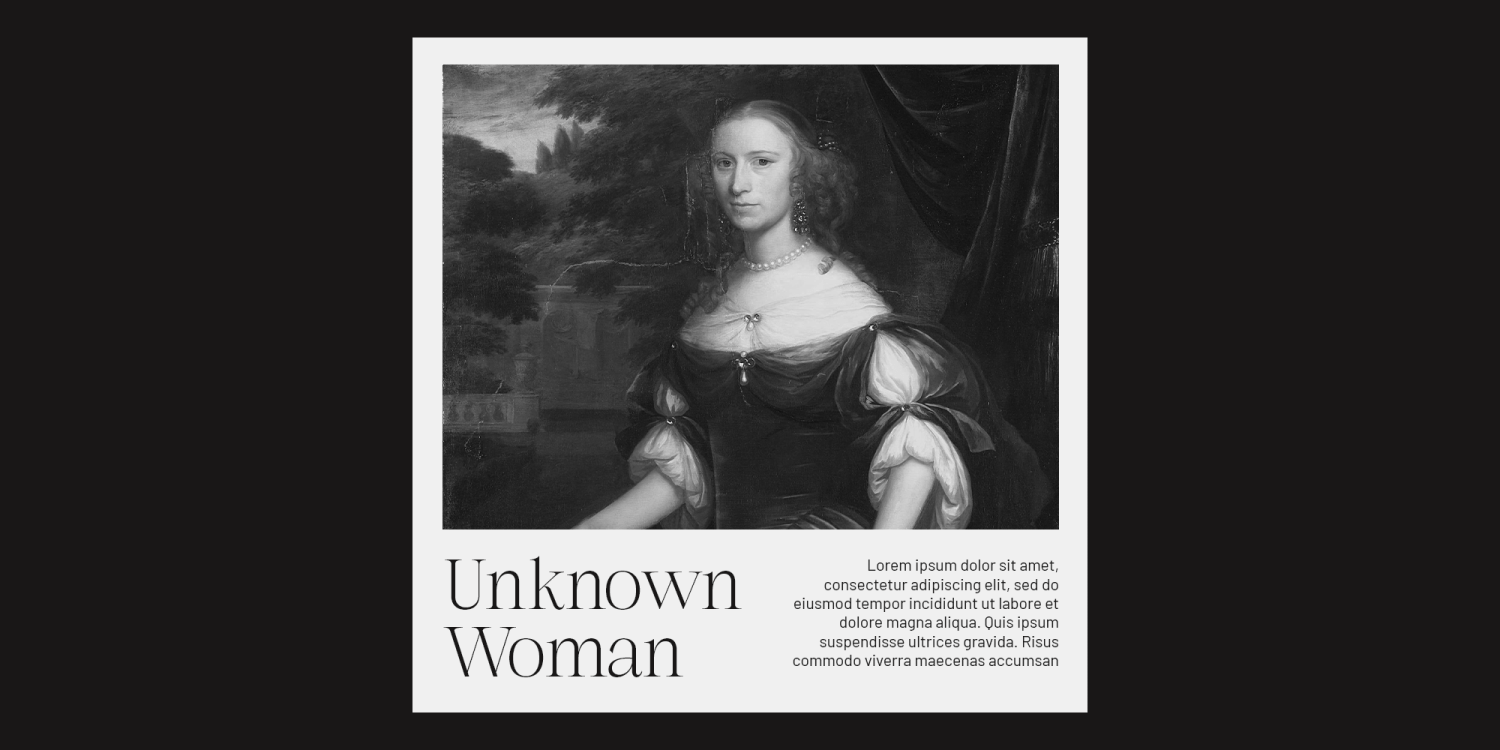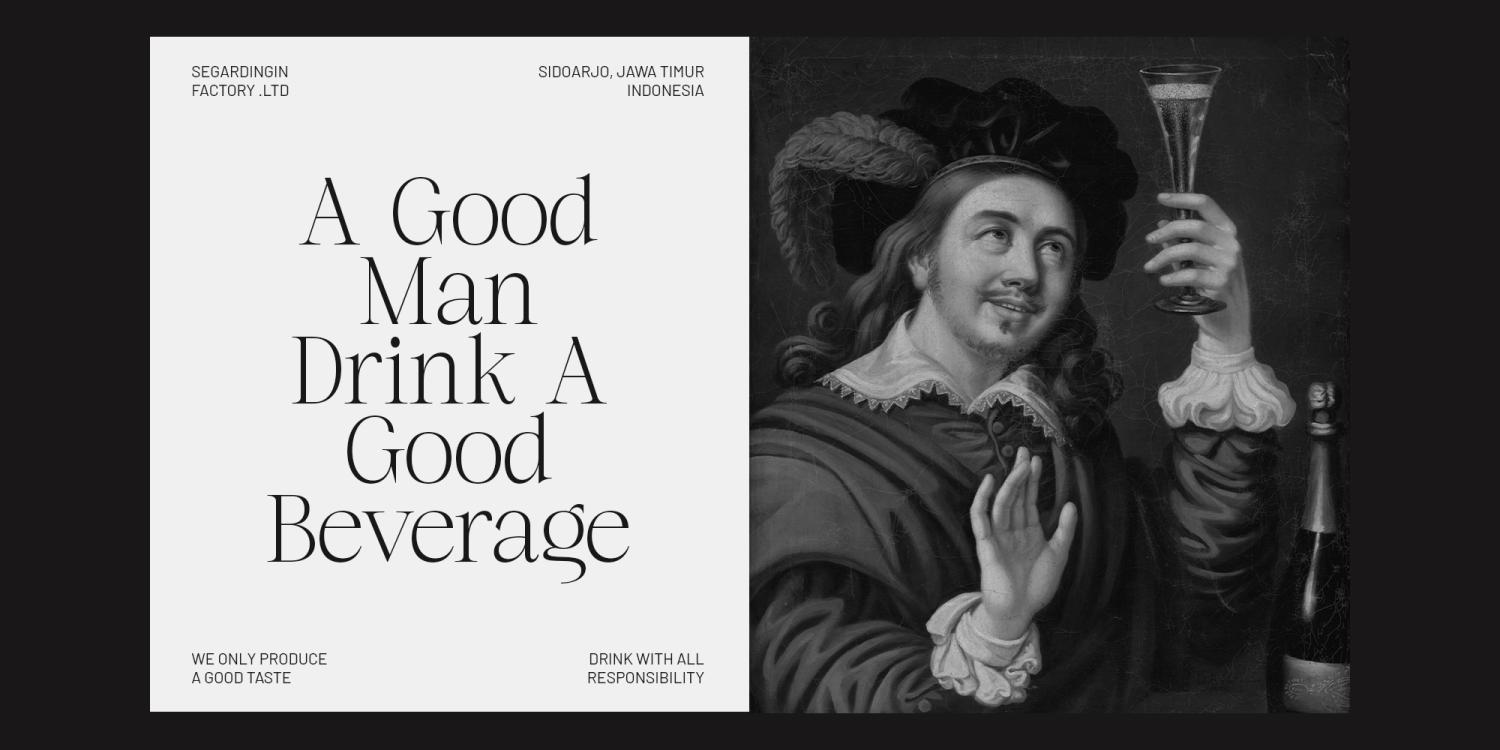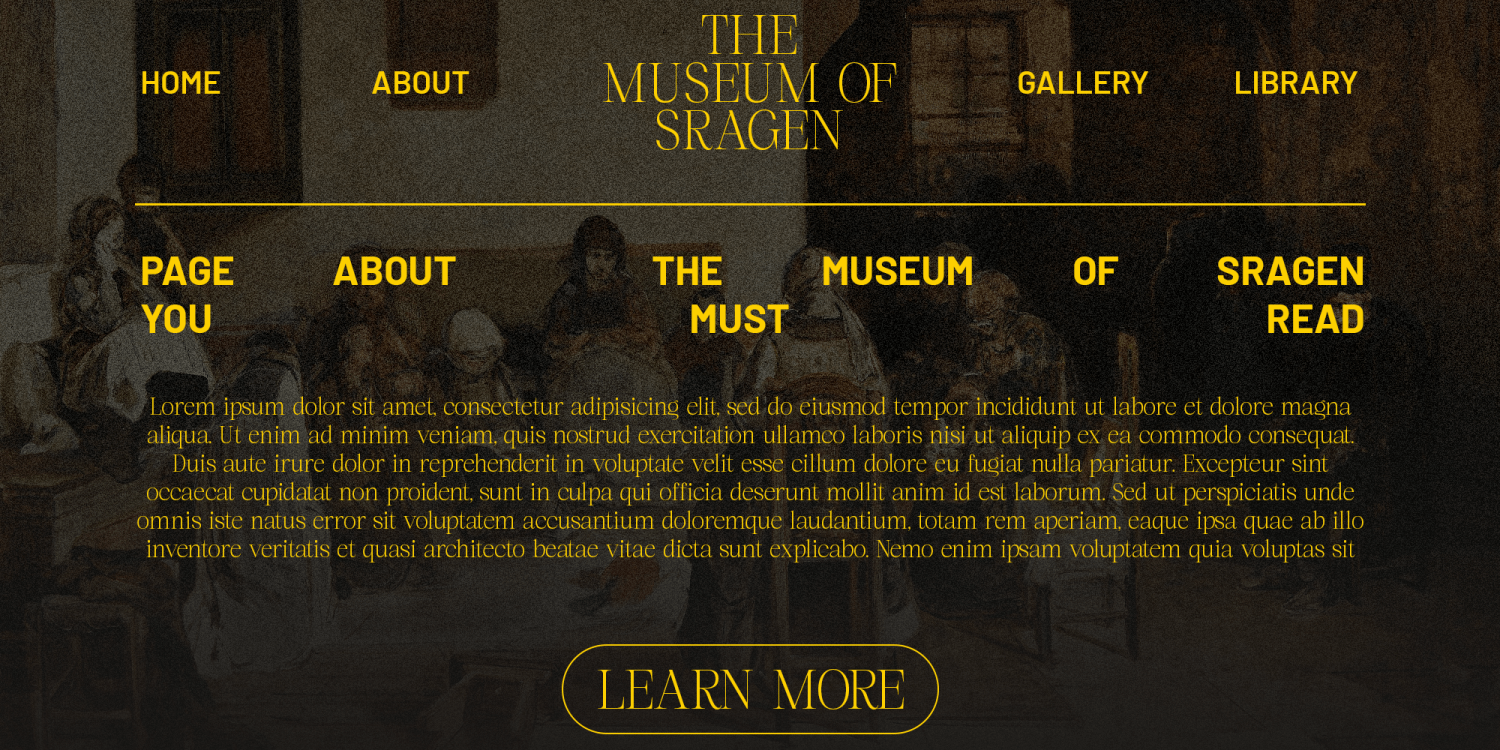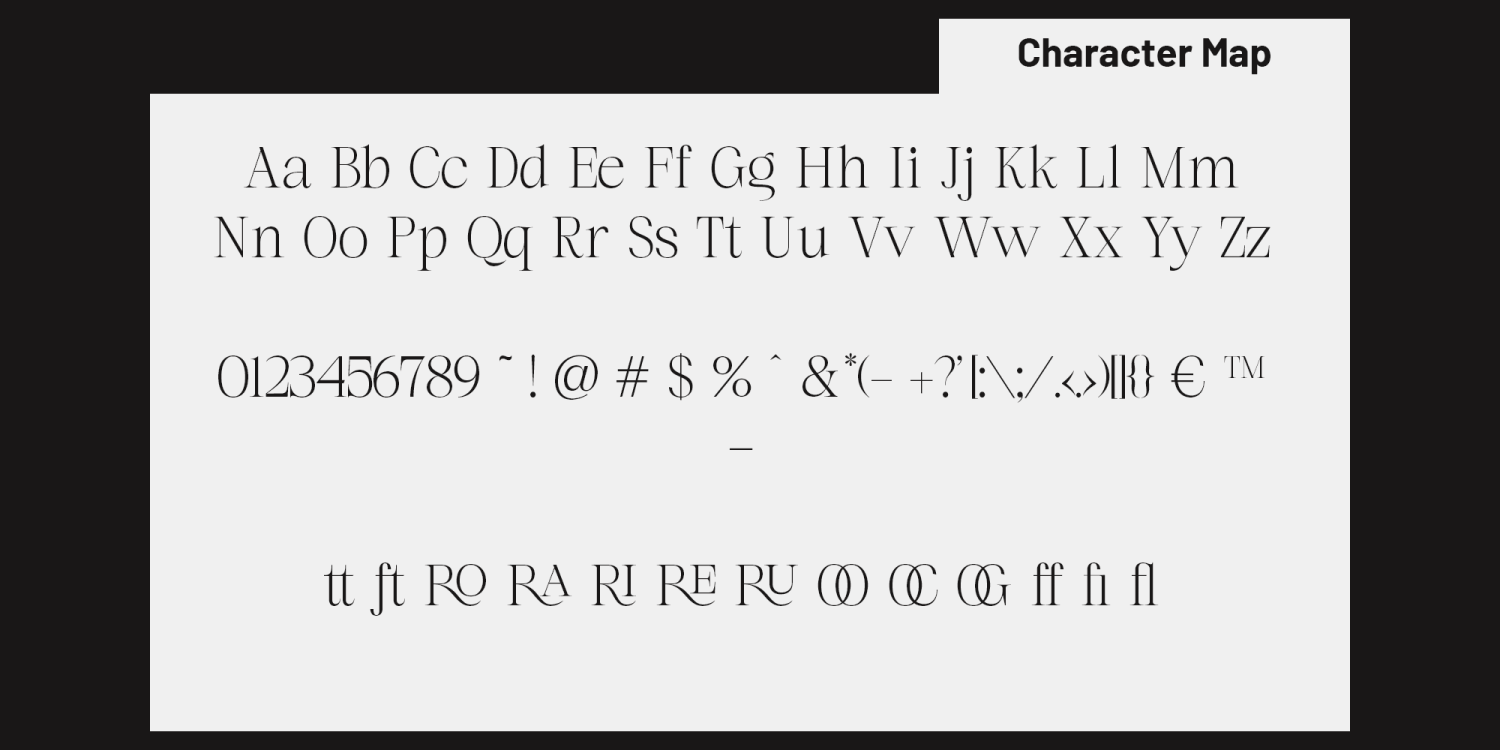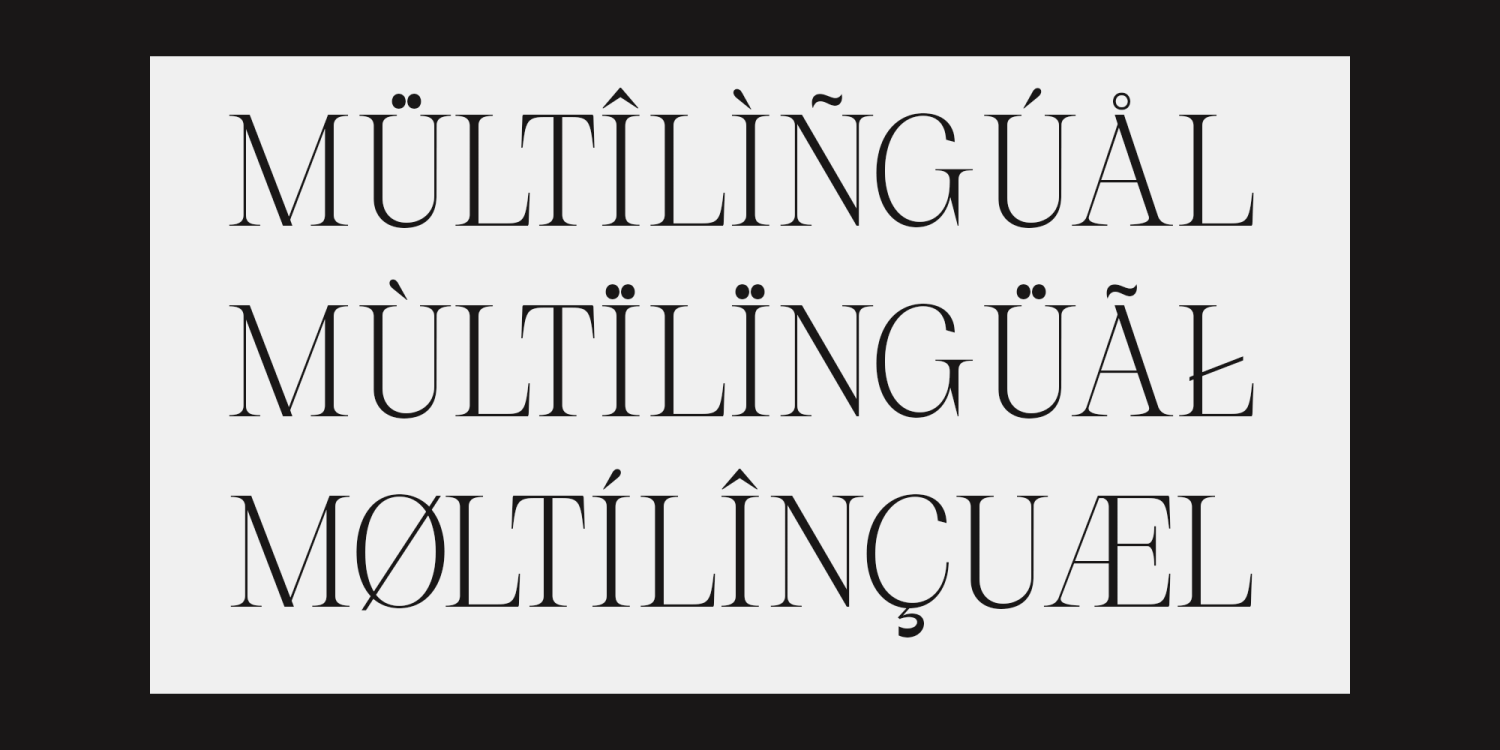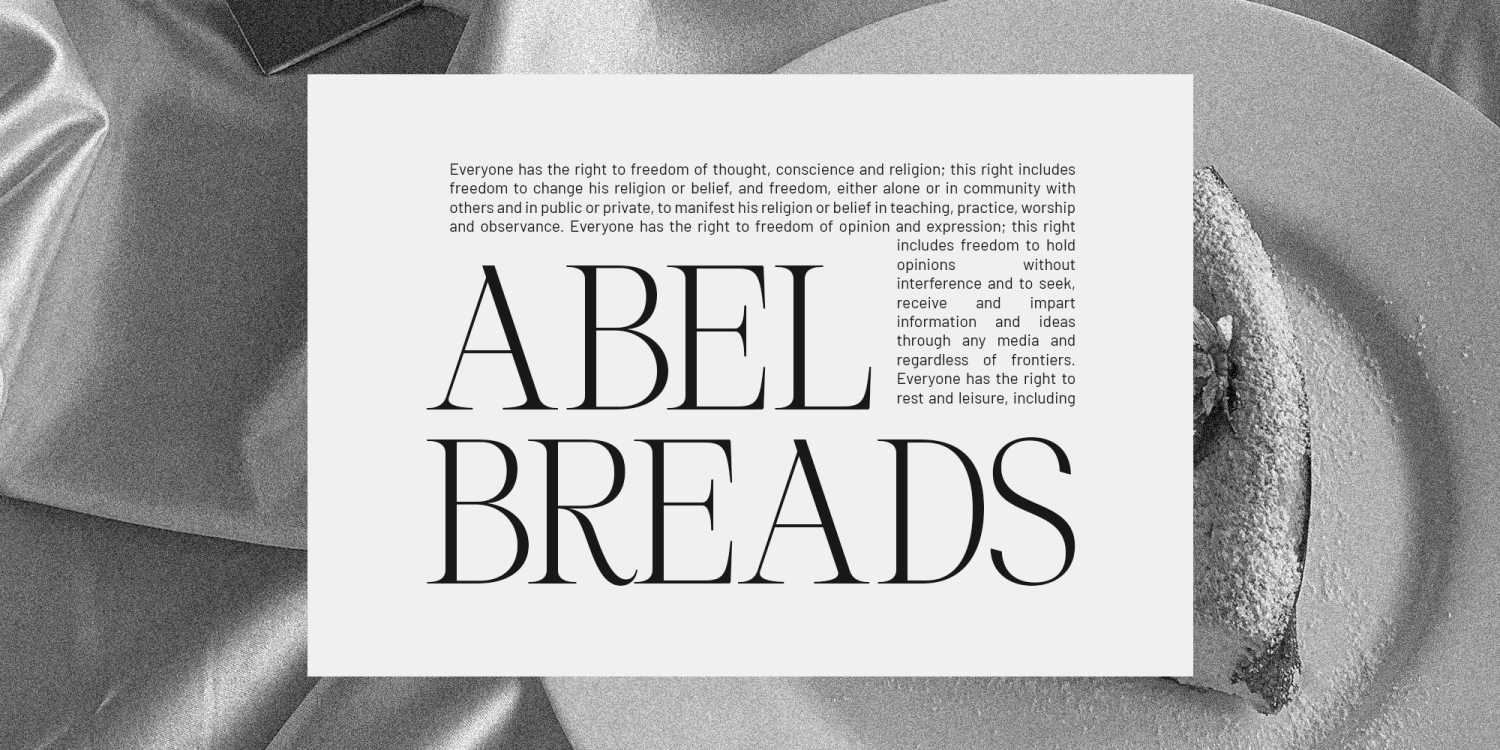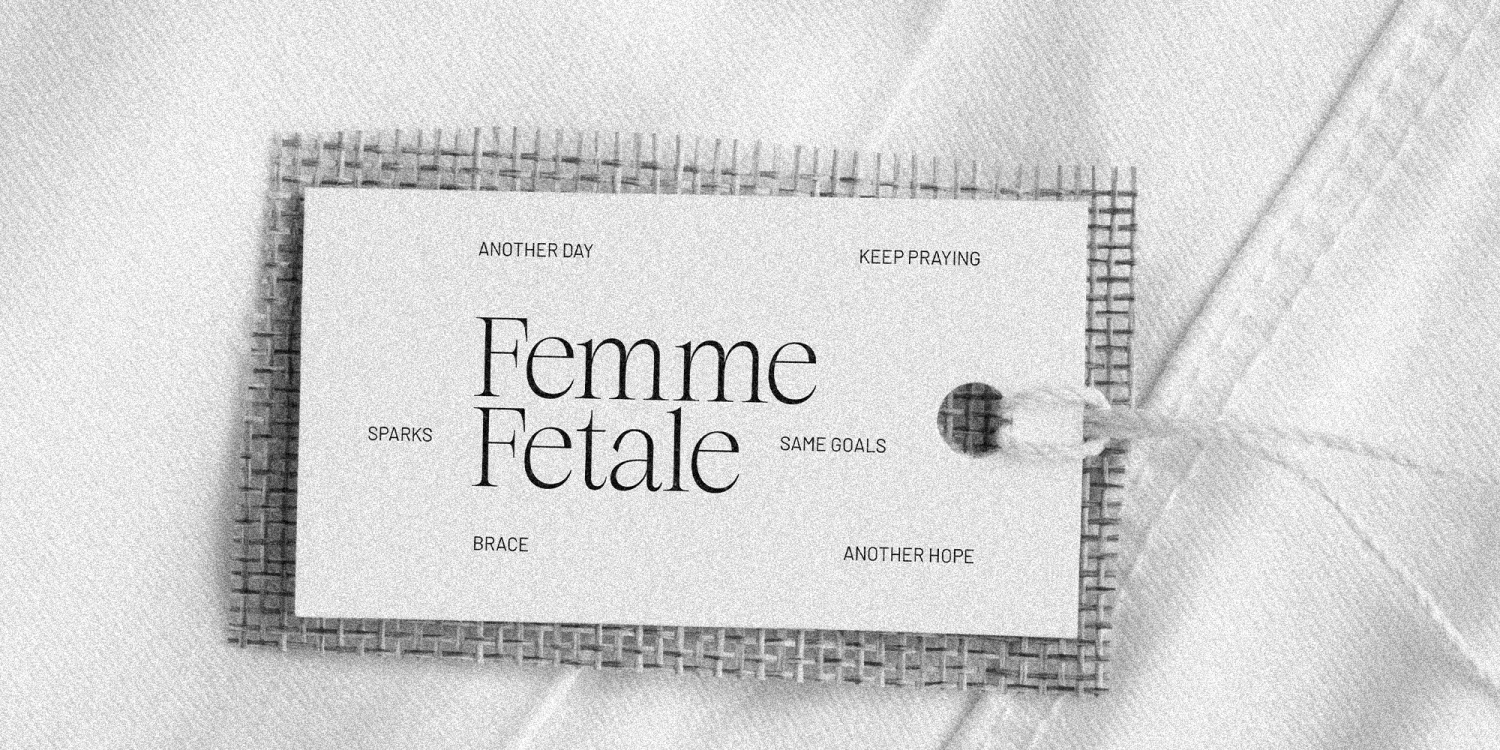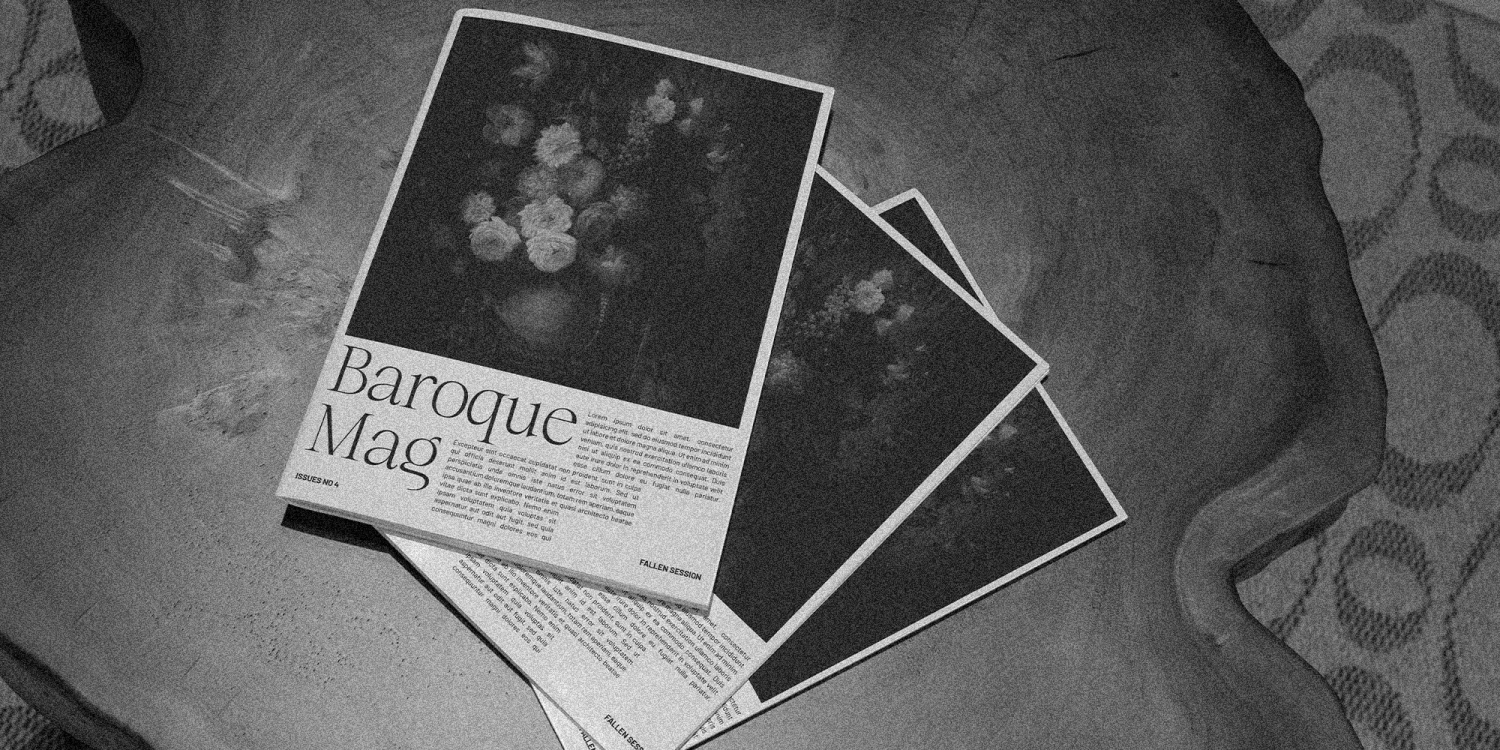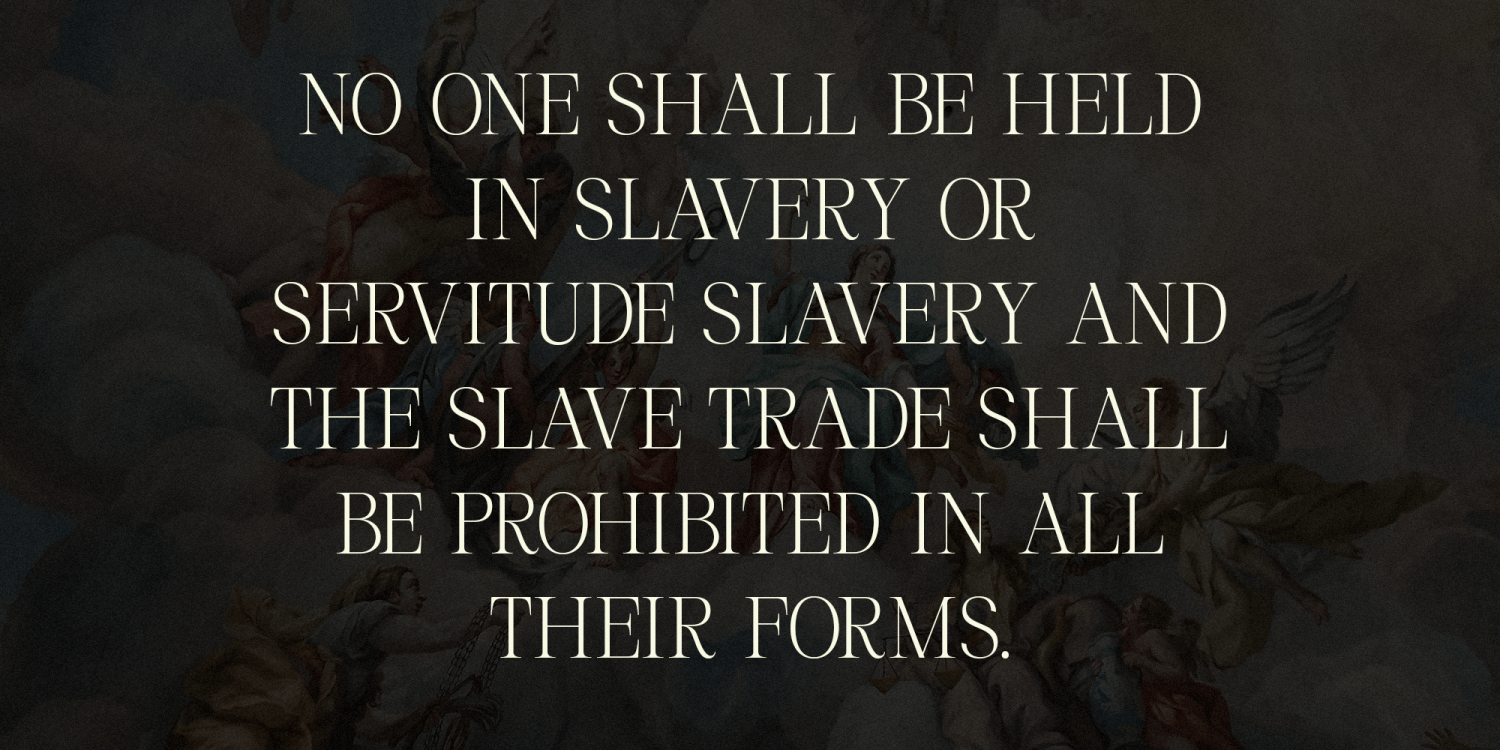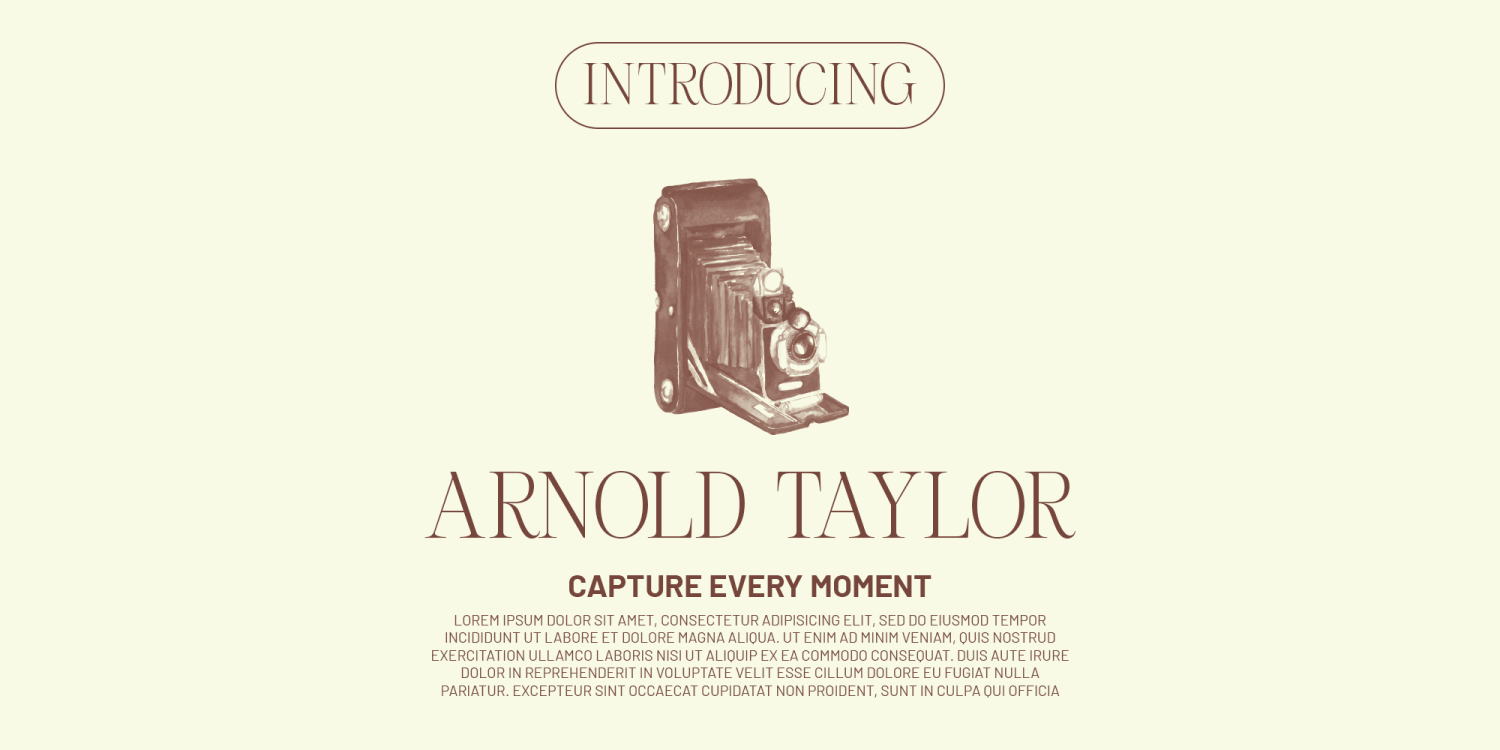
Norigh
Font Family by Marvadesign
Introducing New Font The Norigh font is an elegant serif typeface designed to evoke a sense of luxury and minimalist sophistication. Its refined, clean lines create a polished appearance, balancing grace and subtlety. With a touch of modernity, Norigh is ideal for high-end branding, editorial design, and any creative project where elegance is paramount. The font also includes a selection of carefully crafted ligatures, adding versatility and enhancing its overall visual appeal. These ligatures provide seamless character transitions, enriching the typography with a unique and tasteful flair that complements its minimalist aesthetic.